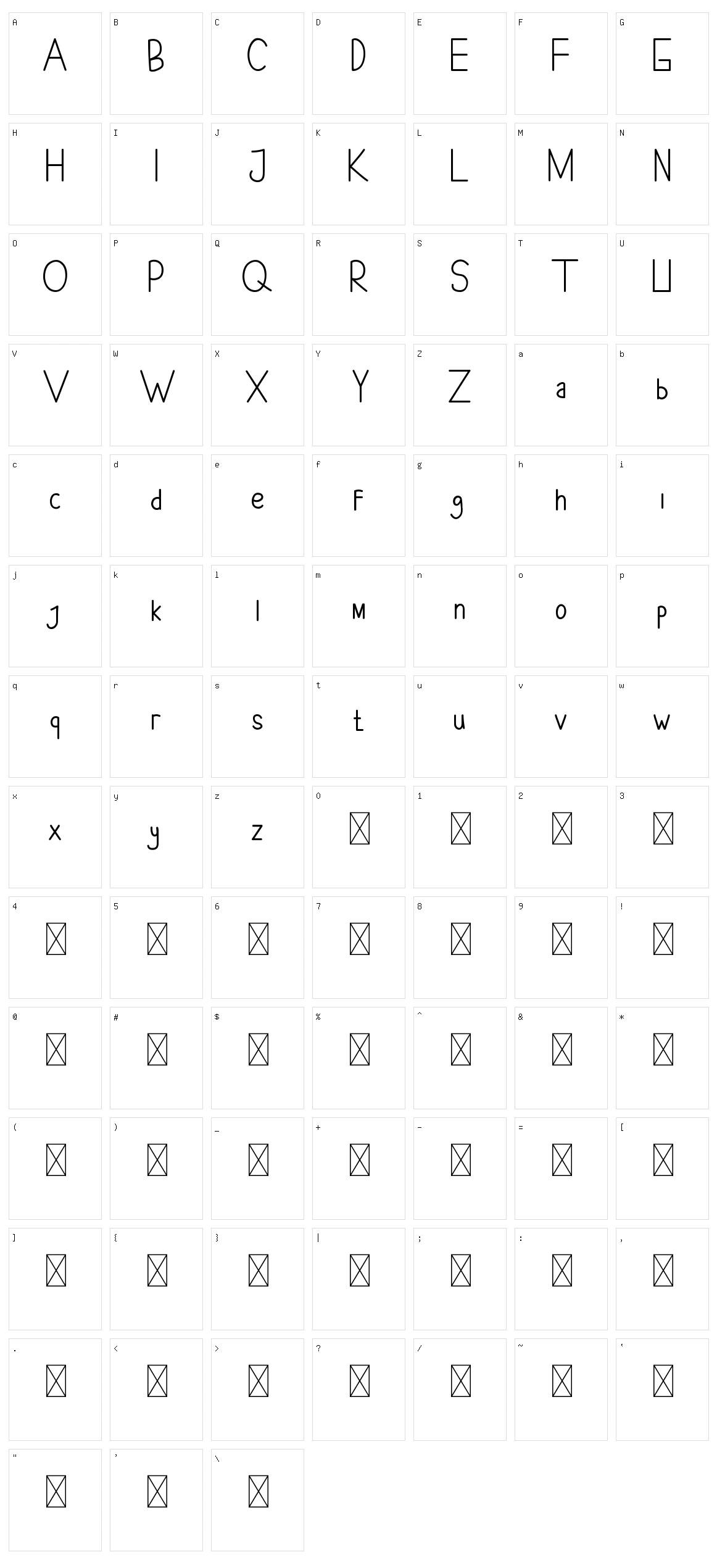
The free font Cheeks Rosy is carefully designed by Edric Studio, showcasing a thoughtful balance of creativity and usability and falls under the Cartoon font style. When you download the ZIP file, it contains only 7.73 KB of font files, making it lightweight and quick to download. Please review the license details below to understand permitted usage and distribution rights. If license information is not available, we recommend using this font for personal projects only or contacting the author directly for commercial usage permissions.